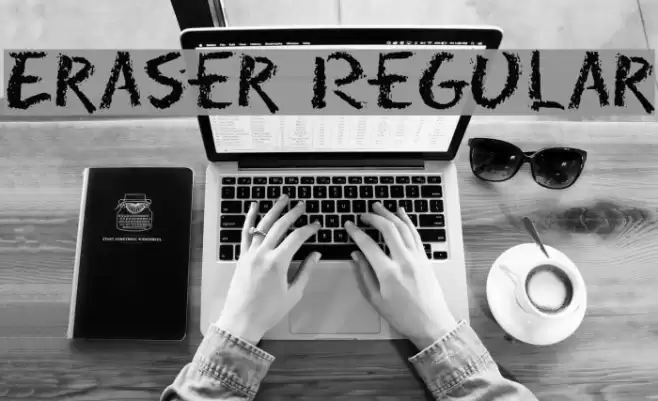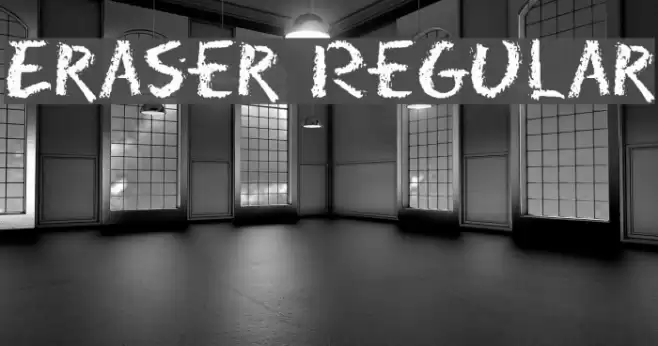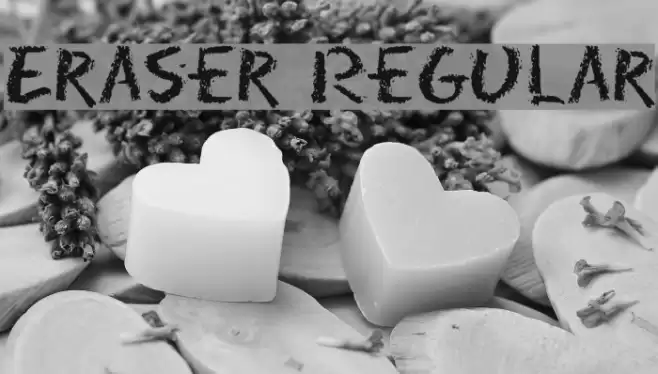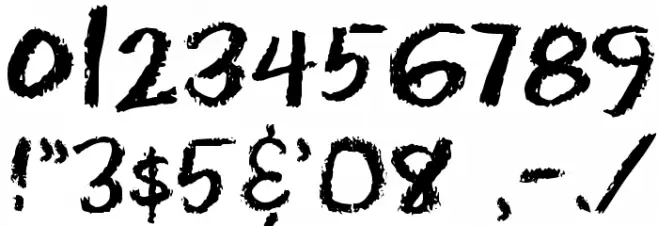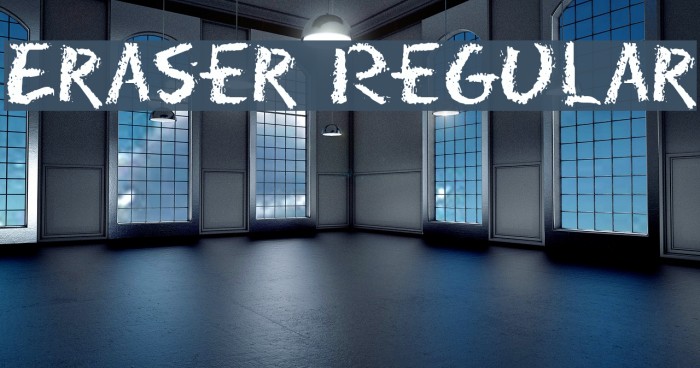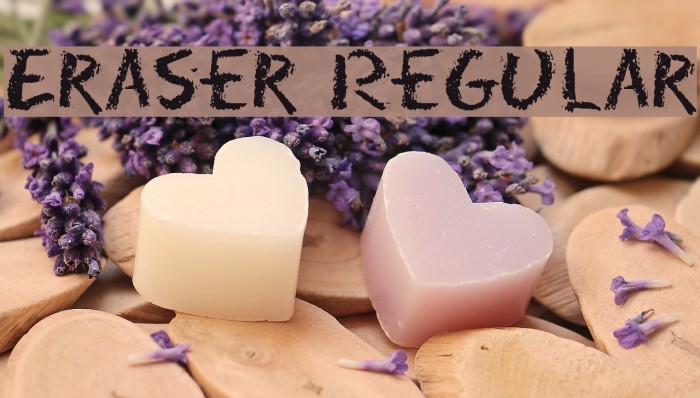
Eraser Regular Font
Eraser Regular Description
This font features a distinctive, textured appearance reminiscent of chalk or crayon strokes, giving it a playful and informal look. Each character is crafted with uneven edges and varying thickness, creating a dynamic and lively feel. The uppercase and lowercase letters maintain a consistent style, with the uppercase being slightly more pronounced. Numbers and special characters follow the same textured pattern, ensuring uniformity across all glyphs. This font's unique style makes it stand out, perfect for creative projects that require a touch of whimsy and originality.
A textured, playful font with a chalk-like appearance from Handwritten fonts.
- Proposed Projects: Ideal for children's book covers, playful posters, creative invitations, and educational materials.
- Overall Style: Playful, Informal, Creative
- Use Case: Headlines, Posters, Creative Projects